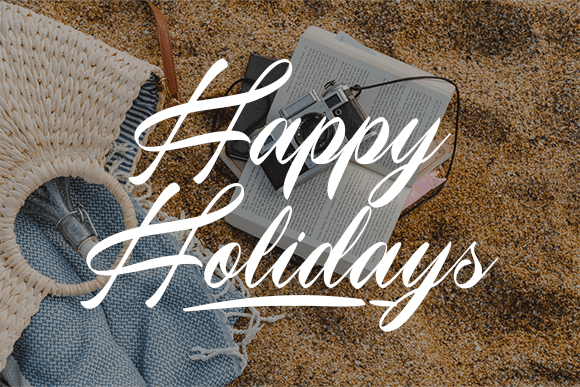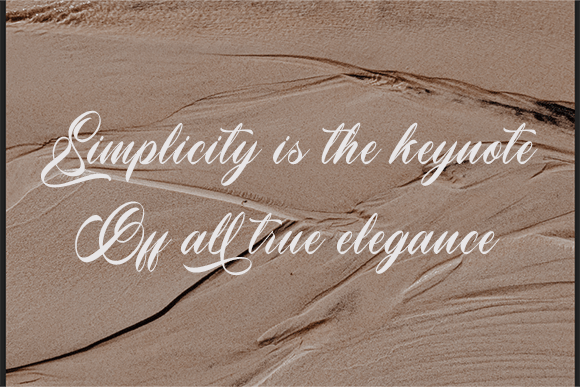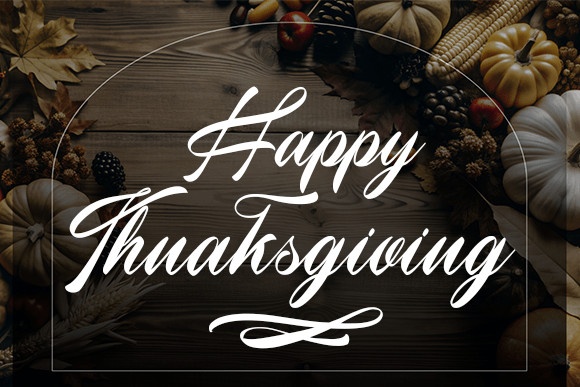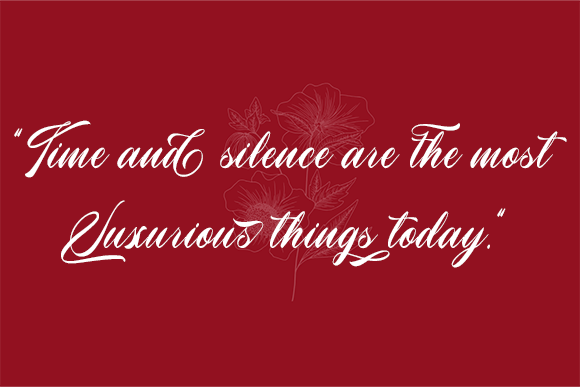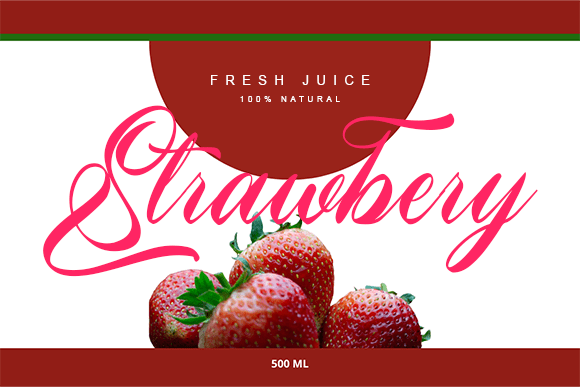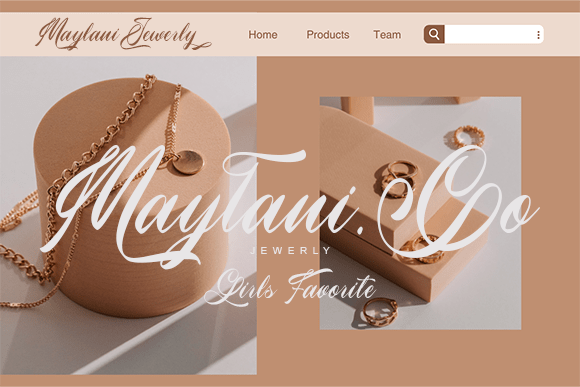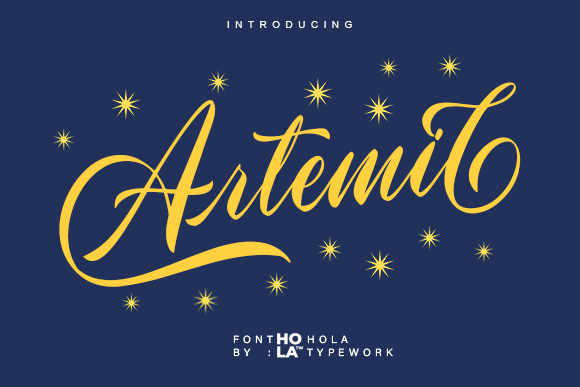
Introducing Artemil Font: Elevate Your Designs with Artistic Flair and Contemporary Elegance
In the world of typography, few fonts manage to strike a balance between artistic expression and modern sophistication. Artemil Font is one such exceptional typeface that brings together the fluidity of brush strokes, the dynamism of curves, and the expressiveness of letterforms to create a truly unique visual experience. If you’re a designer, crafter, or simply someone who appreciates the art of beautiful lettering, Artemil is sure to captivate your imagination and inspire your creativity.
The Art of Hand-Painted Calligraphy Reimagined
Artemil Font is deeply rooted in the tradition of hand-painted calligraphy, yet it boldly strides into the modern era with its innovative approach. Each letterform is meticulously crafted to echo the natural flow and spontaneity of brush calligraphy, while also embracing the precision and consistency required for digital design. The result is a font that feels both organic and refined, capable of adding a touch of elegance to any project.
Key Features of Artemil Font
- Fluid Brush Strokes: Artemil’s defining characteristic is its fluid, brush-like strokes that give the font its dynamic and artistic feel. These strokes bring a sense of movement and energy to your designs.
- Dynamic Curves: The font’s curves are meticulously designed to provide a sense of flow and continuity, making it perfect for creating visually engaging text.
- Expressive Letterforms: Each letter in Artemil is crafted to convey a sense of personality and style, ensuring that your designs stand out with a unique flair.
- Versatility: Whether you’re working on a logo, invitation, packaging, or social media graphics, Artemil adapts seamlessly to various design needs, delivering both visual impact and versatility.
Ideal Applications for Artemil Font
Artemil’s versatility makes it an excellent choice for a wide range of design projects. Here are some ideal applications where Artemil truly shines:
- Logos: Create memorable and stylish logos that capture the essence of your brand with Artemil’s unique and artistic touch.
- Invitations: Add an element of sophistication and charm to your invitations, making them truly special for weddings, parties, and other events.
- Packaging: Elevate your product packaging with a font that exudes elegance and creativity, helping your product stand out on store shelves.
- Social Media Graphics: Enhance your social media presence with eye-catching graphics that leverage Artemil’s modern and artistic vibe to engage your audience.
Why Choose Artemil Font?
In a sea of digital fonts, Artemil stands out for its perfect blend of artistic flair and contemporary elegance. Here are a few reasons why designers and crafters are gravitating towards Artemil:
- Unique Aesthetic: Artemil offers a distinctive look that can help differentiate your designs from the crowd.
- Ease of Use: Designed with the user in mind, Artemil is easy to integrate into various design projects, making it accessible to both beginners and professionals.
- High Versatility: Its adaptability across different mediums and applications makes Artemil a valuable addition to any designer’s toolkit.
Artemil Font is more than just a typeface; it’s a design statement that combines the best of hand-painted calligraphy with modern digital elegance. Its fluid brush strokes, dynamic curves, and expressive letterforms make it an exceptional choice for designers and crafters looking to infuse their projects with creativity and sophistication. Whether you’re aiming to create stunning logos, elegant invitations, captivating packaging, or engaging social media graphics, Artemil is poised to elevate your designs to new heights. Discover the artistic potential of Artemil Font and let your creativity flourish.